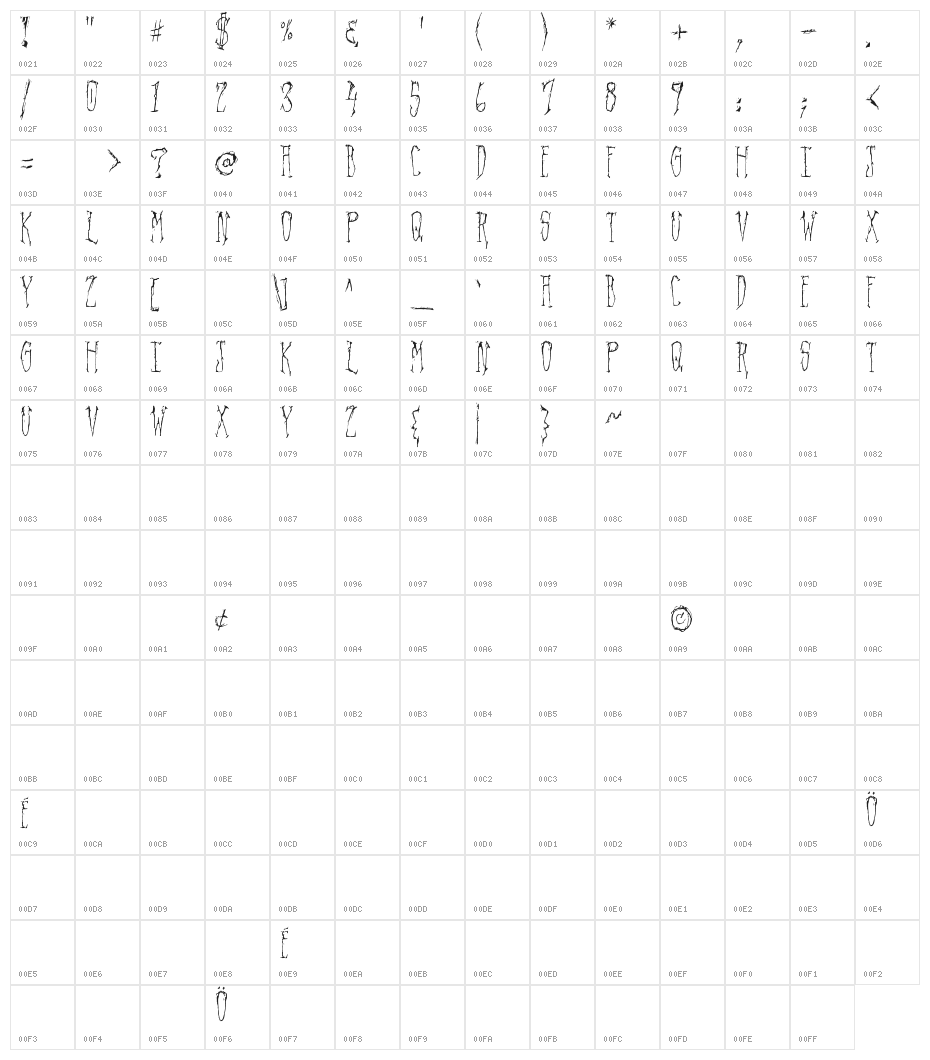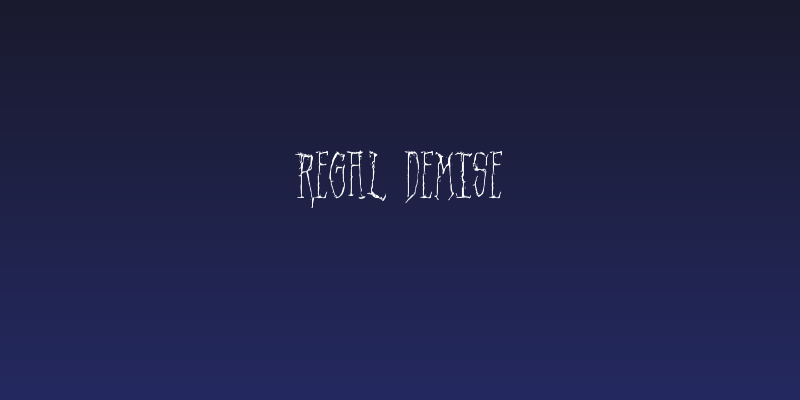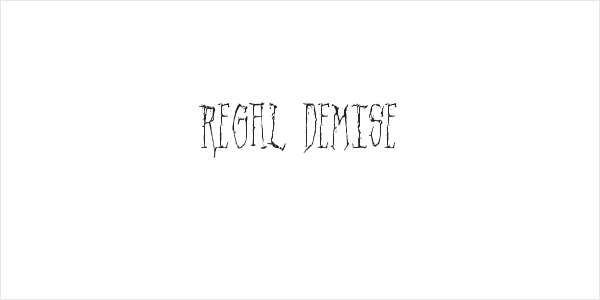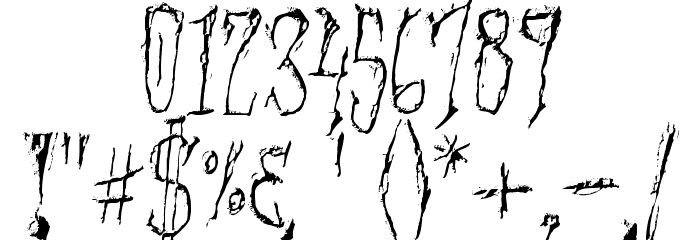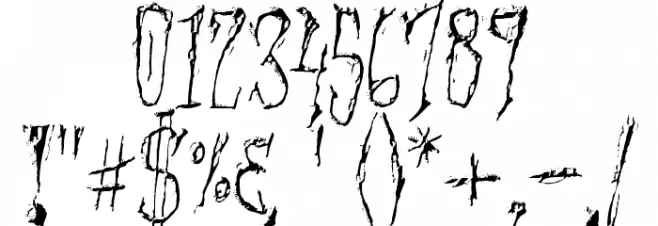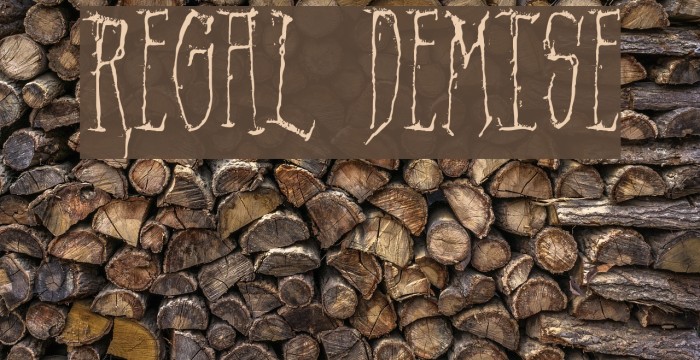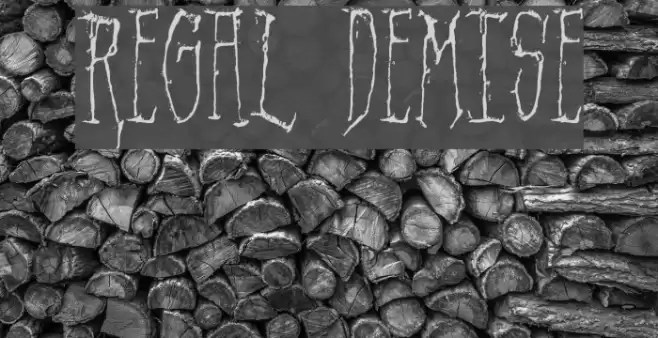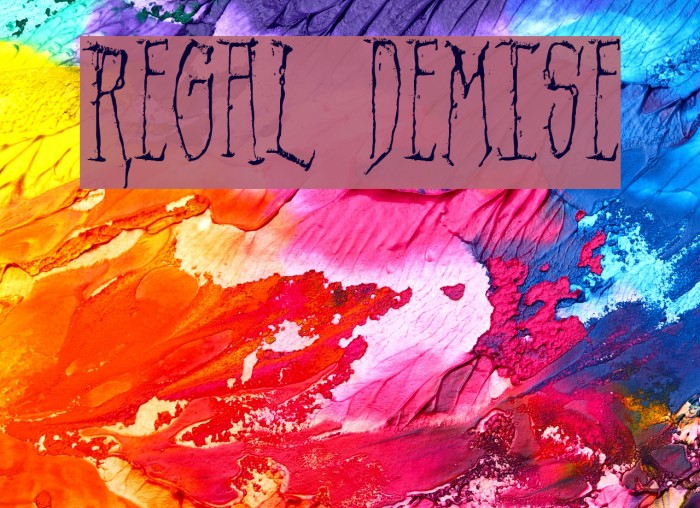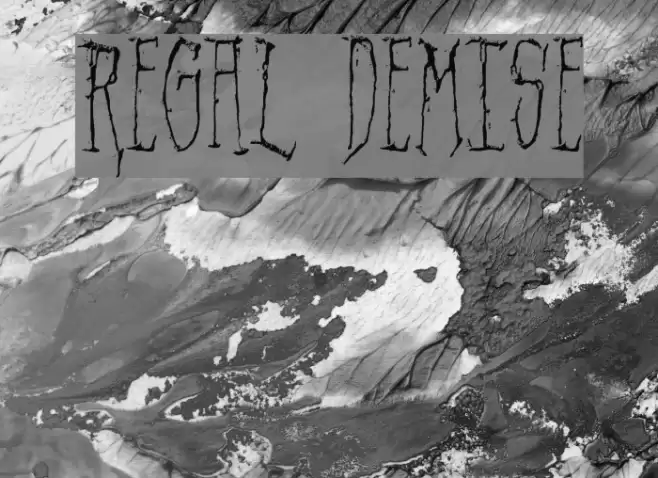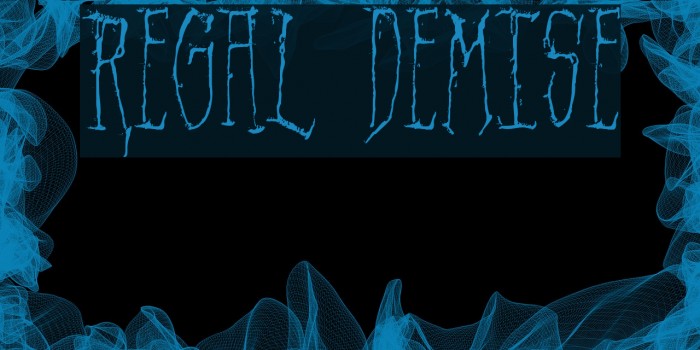
Regal Demise Font
Regal Demise Description
This font features a distressed and jagged appearance, reminiscent of decayed or eroded surfaces. The characters have an uneven, hand-drawn quality, with irregular edges and varying stroke thicknesses that create a sense of chaos and unpredictability. The uppercase and lowercase letters maintain a consistent height, while the numerals and special characters share the same rugged aesthetic. This font evokes a sense of mystery and darkness, making it suitable for themes related to horror, fantasy, or the macabre.
| Proposed Projects | Ideal for horror movie posters, Halloween event flyers, gothic-themed book covers, and video game titles. |